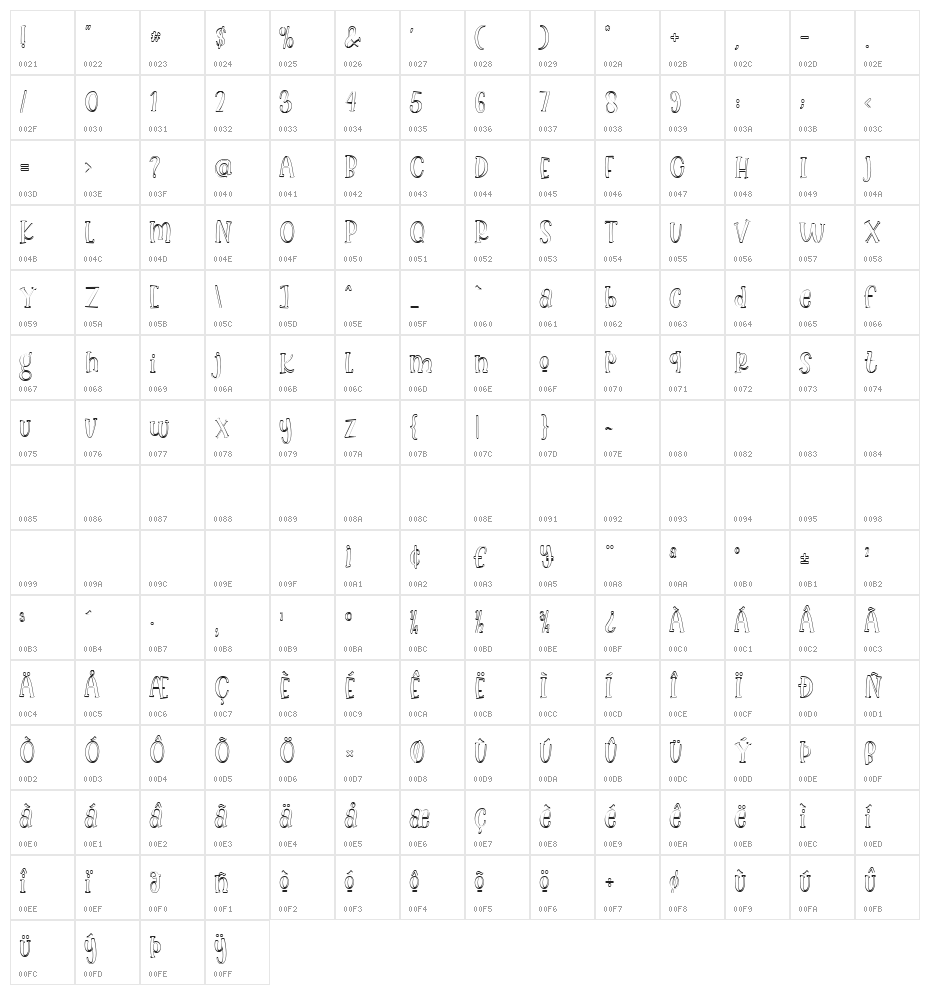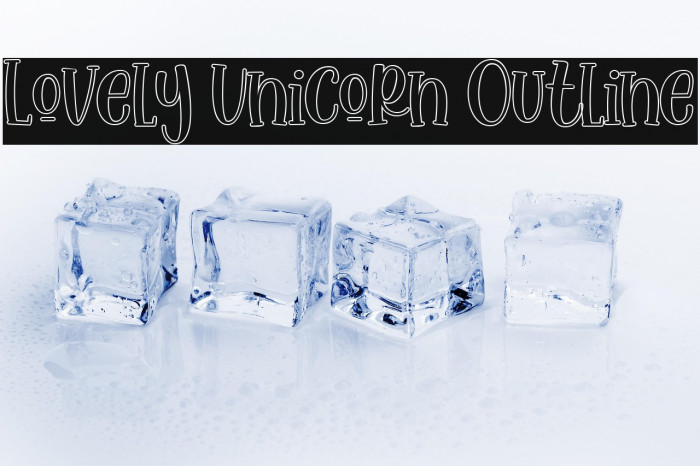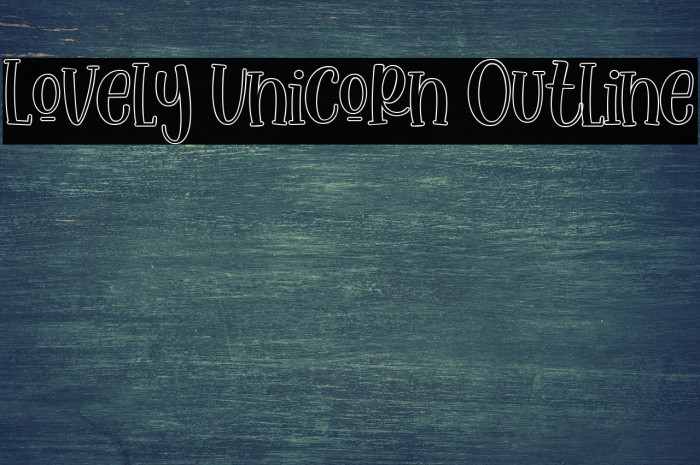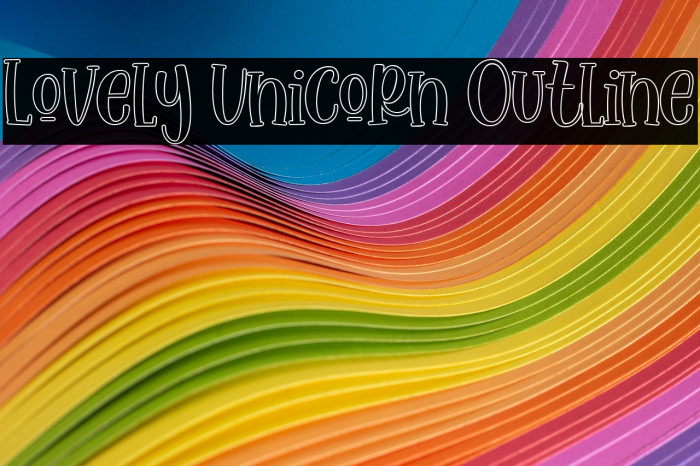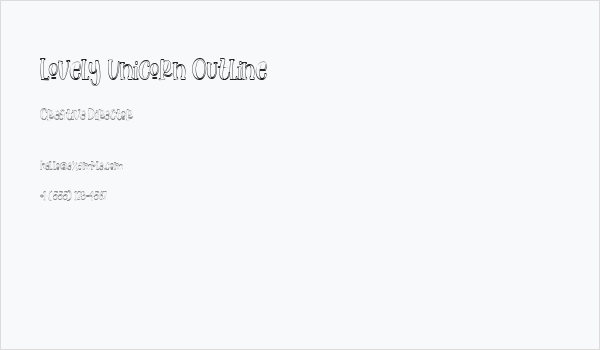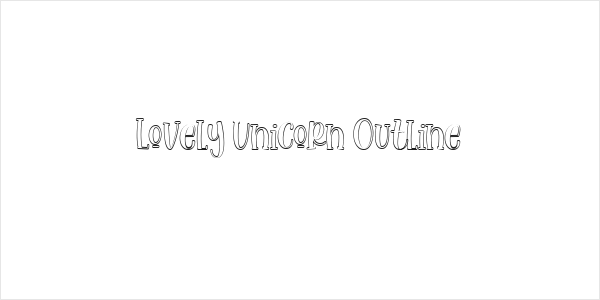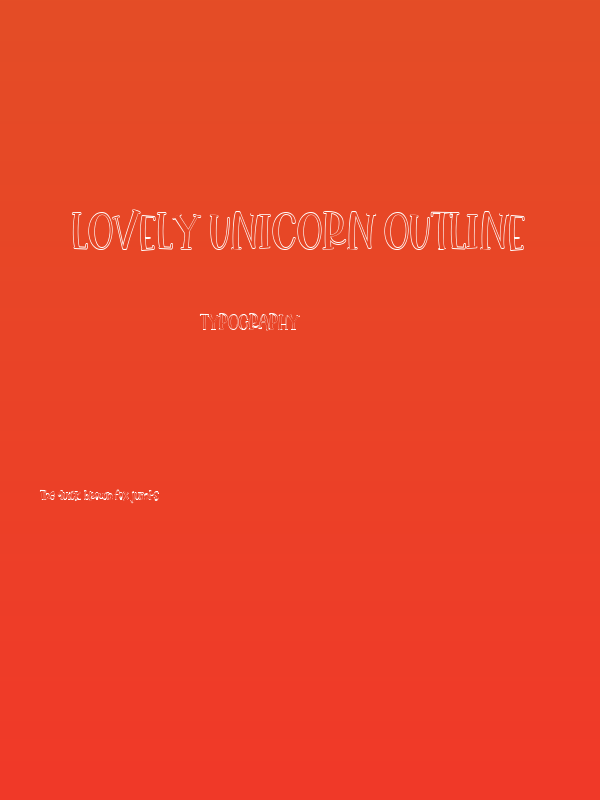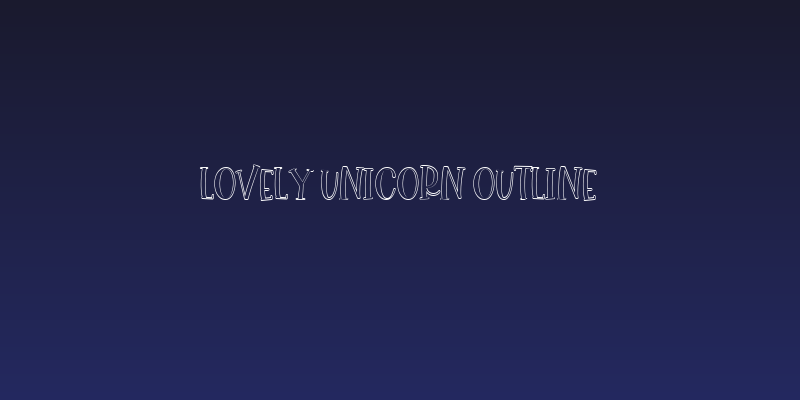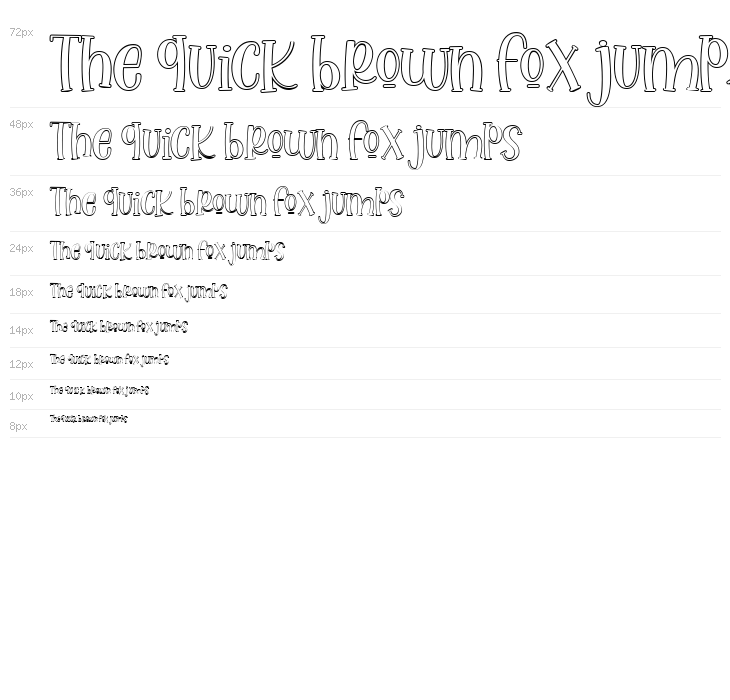
Lovely Unicorn Outline Font
Lovely Unicorn Outline Description
This whimsical and playful font features an outline style with a hand-drawn appearance. The letters are tall and slightly narrow, with a consistent stroke width that gives them a uniform look. The curves are smooth and rounded, adding a friendly and approachable feel. The uppercase and lowercase letters maintain a consistent style, with the lowercase being slightly smaller in height. Numbers and special characters are included, matching the overall aesthetic. This font is perfect for projects that aim to convey a sense of fun and creativity.
| Overall Style | Whimsical |
| Proposed Projects | Ideal for children's book covers, playful branding, greeting cards, and creative posters. |